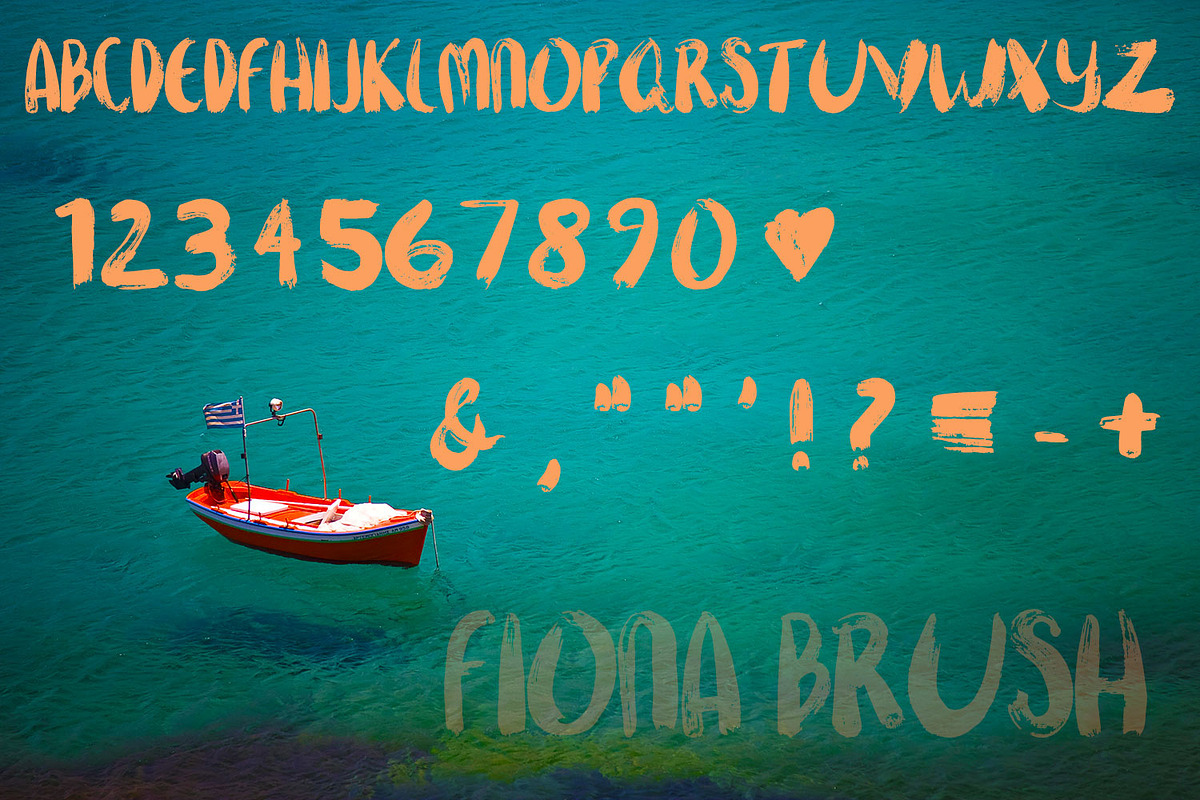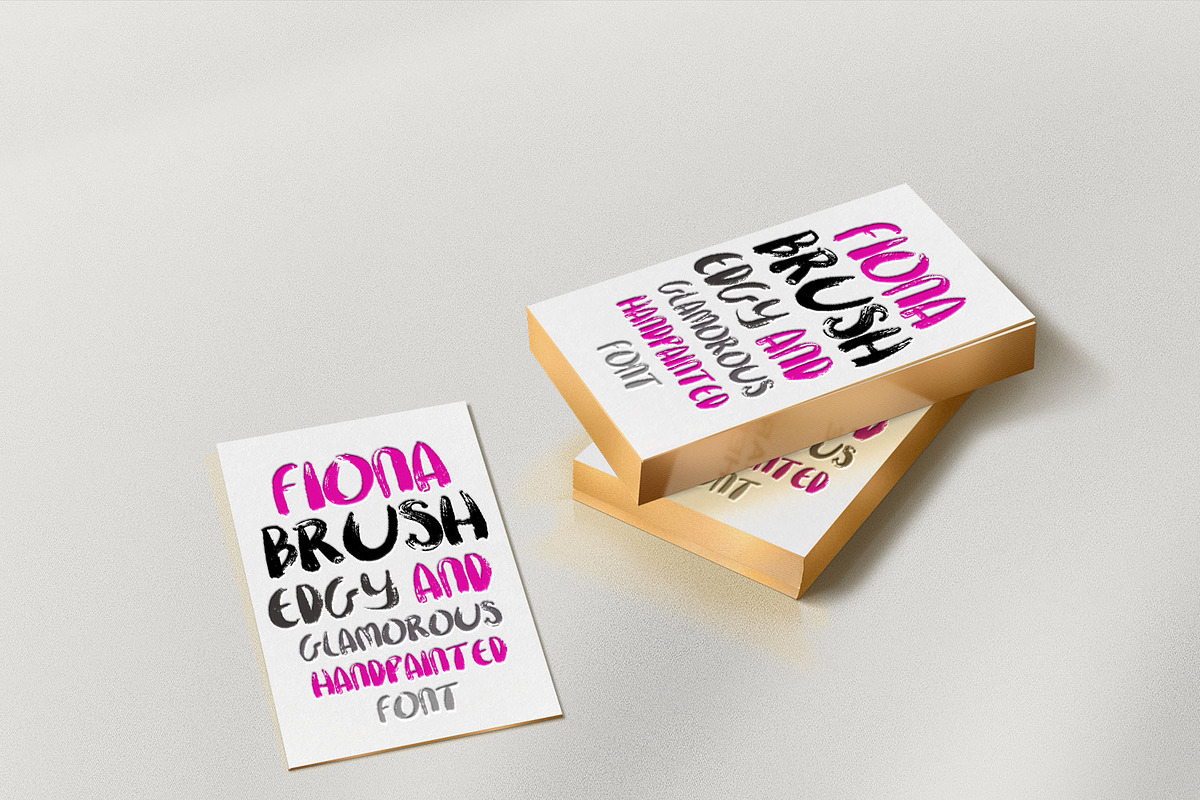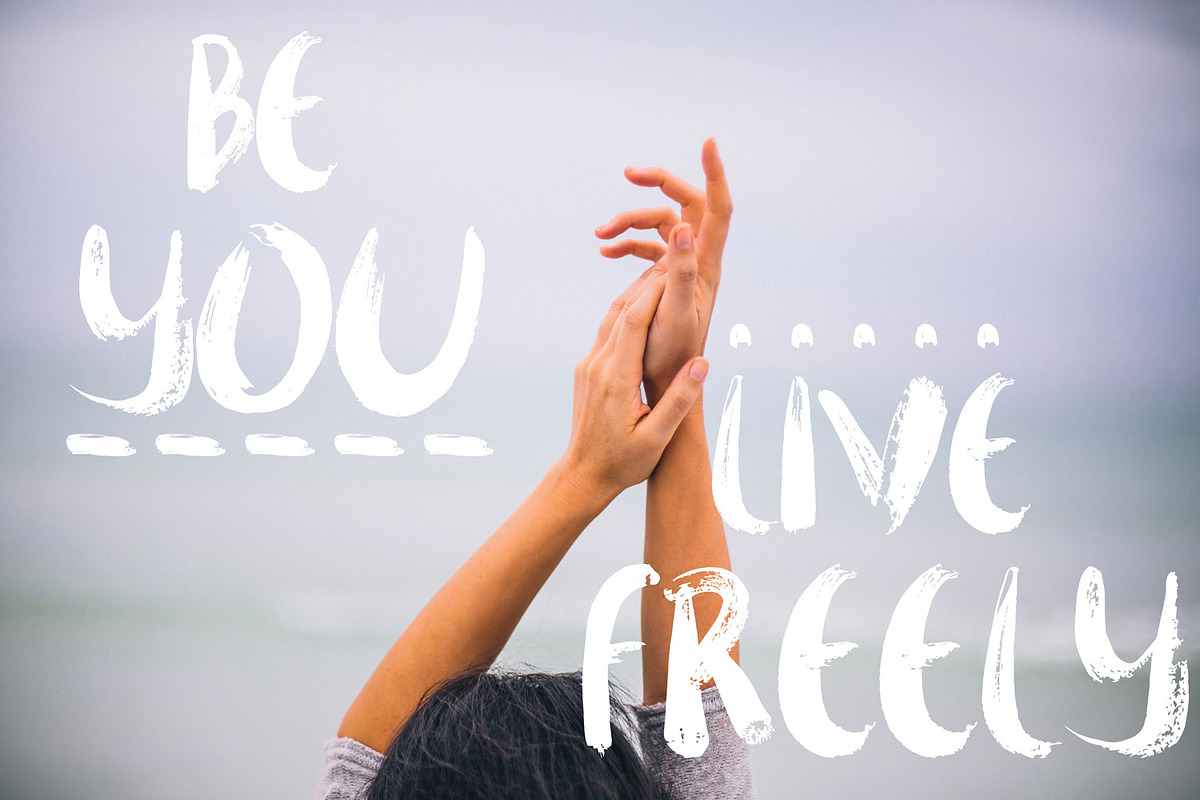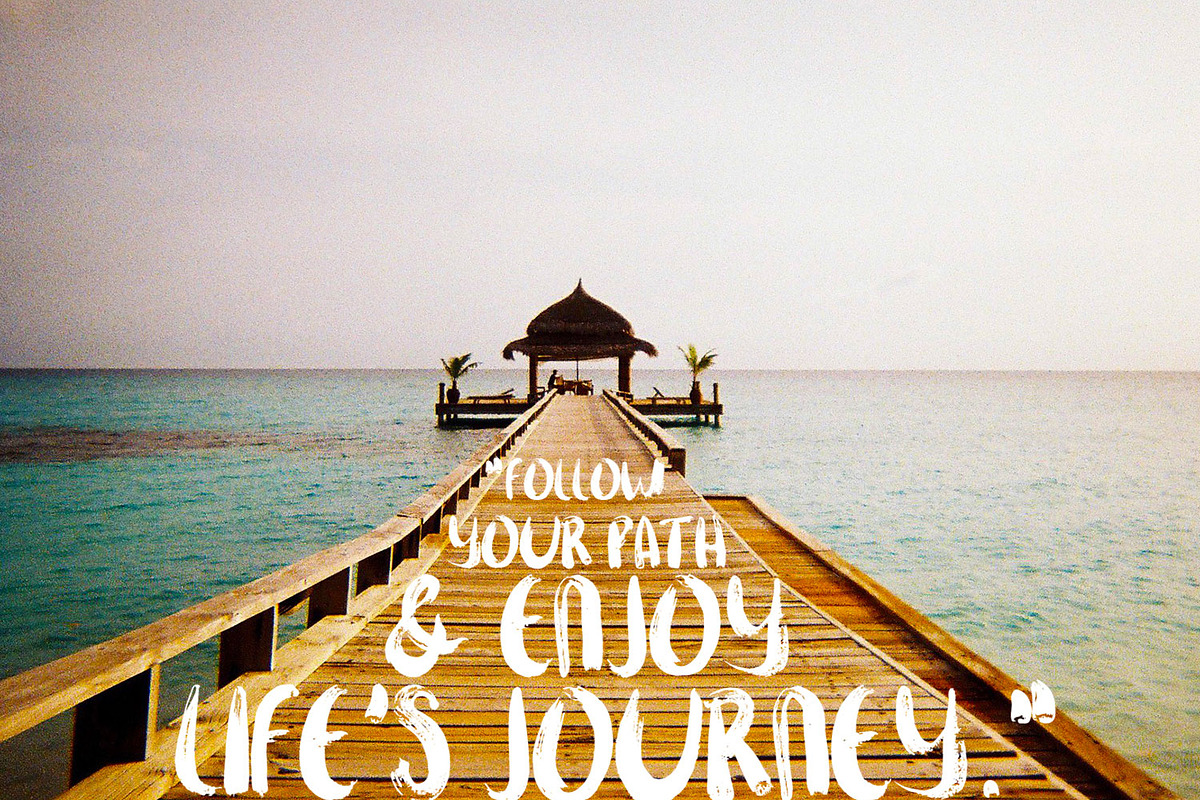
Fiona Brush, A Hand-Painted Font
Fiona Brush, A Hand-Painted Font by draw & co. is a font selected for branding, posters, packaging, typography.
Why Fiona Brush, A Hand-Painted Font is worth a look
Fiona Brush, A Hand-Painted Font by draw & co. fits naturally into Branding, posters, packaging, typography.